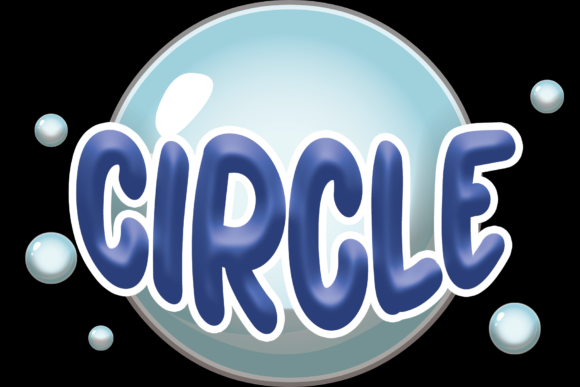
The Perfect Circle: A Font that Brings Your Designs to Life
Have you ever been working on a project, and suddenly, an idea hits you like a ray of sunshine? It’s that feeling of pure creativity, where everything seems to fall into place, and your imagination runs wild. For me, it’s moments like these that remind me why I love being a designer. And today, I want to share with you a font that’s sure to spark that same feeling – the Circle Font.
This bold and simple display font is a game-changer for any designer looking to add a touch of elegance to their craft designs. With its clean lines and circular shapes, the Circle Font is incredibly easy to use and mix with various design elements. Whether you’re creating a logo, a poster, or a social media graphic, this font is sure to bring your designs to life in a beautiful way.
Circle Font Key Features
- Font Family: Circle Font is a sans-serif font with a unique circular shape, designed for use in digital and print media.
- Language Support: Supports over 200 languages, including Latin, Cyrillic, and Greek alphabets.
- Unique Characteristics: The circular shape of the font makes it ideal for use in circular designs, logos, and branding materials.
Designer Review: Circle Font
I recently had the chance to work with the Circle Font, and I must say it’s an interesting choice. ✨ The circular shapes and smooth lines do give it a unique and modern feel, making it perfect for futuristic or sci-fi designs. The font is also highly customizable, allowing you to adjust the size, color, and even the spacing between characters.
One of the standout features of Circle Font is its versatility. ✨ It can be used for both display and body text, and it works well in a variety of contexts, from logos and icons to headings and paragraphs. The font also supports a wide range of languages, making it a great option for global brands or websites.
- ⚠️ The font can be difficult to read at small sizes, as the circular shapes can become distorted or hard to distinguish.
- ⚠️ The font may not be suitable for complex or technical text, as the circular shapes can make it difficult to distinguish between similar characters.
Overall, I think the Circle Font is a great option for designers who want to add a touch of modernity and futurism to their designs. While it may have some limitations, the font’s unique style and versatility make it a valuable addition to any designer’s toolkit.
Use circle font to create visually appealing and unique designs.
Combine with other design elements, such as icons and shapes, to create engaging graphics.
Circle font is commonly used in:
Infographics and data visualizations
Social media graphics and advertisements
Brand logos and identity design
Wedding invitations and event graphics
Alternatives to Circle Font for Designers
Poppins
Poppins is a sans-serif font that offers a clean and modern look. It’s suitable for digital products, websites, and applications where a clear and readable font is required. Unlike Circle Font, Poppins is more versatile and can be used for both body text and headings. It’s also highly customizable and supports a wide range of languages.
Inter is a geometric sans-serif font designed for digital interfaces. It’s highly legible and works well for long blocks of text. Compared to Circle Font, Inter is more geometric and has a more modern feel. It’s suitable for use in digital products, such as websites, apps, and e-books.
Montserrat is a sans-serif font inspired by urban typography. It’s highly versatile and can be used for a wide range of applications, from body text to headings. Unlike Circle Font, Montserrat has a more urban feel and is suitable for use in digital products, such as websites, apps, and social media platforms.